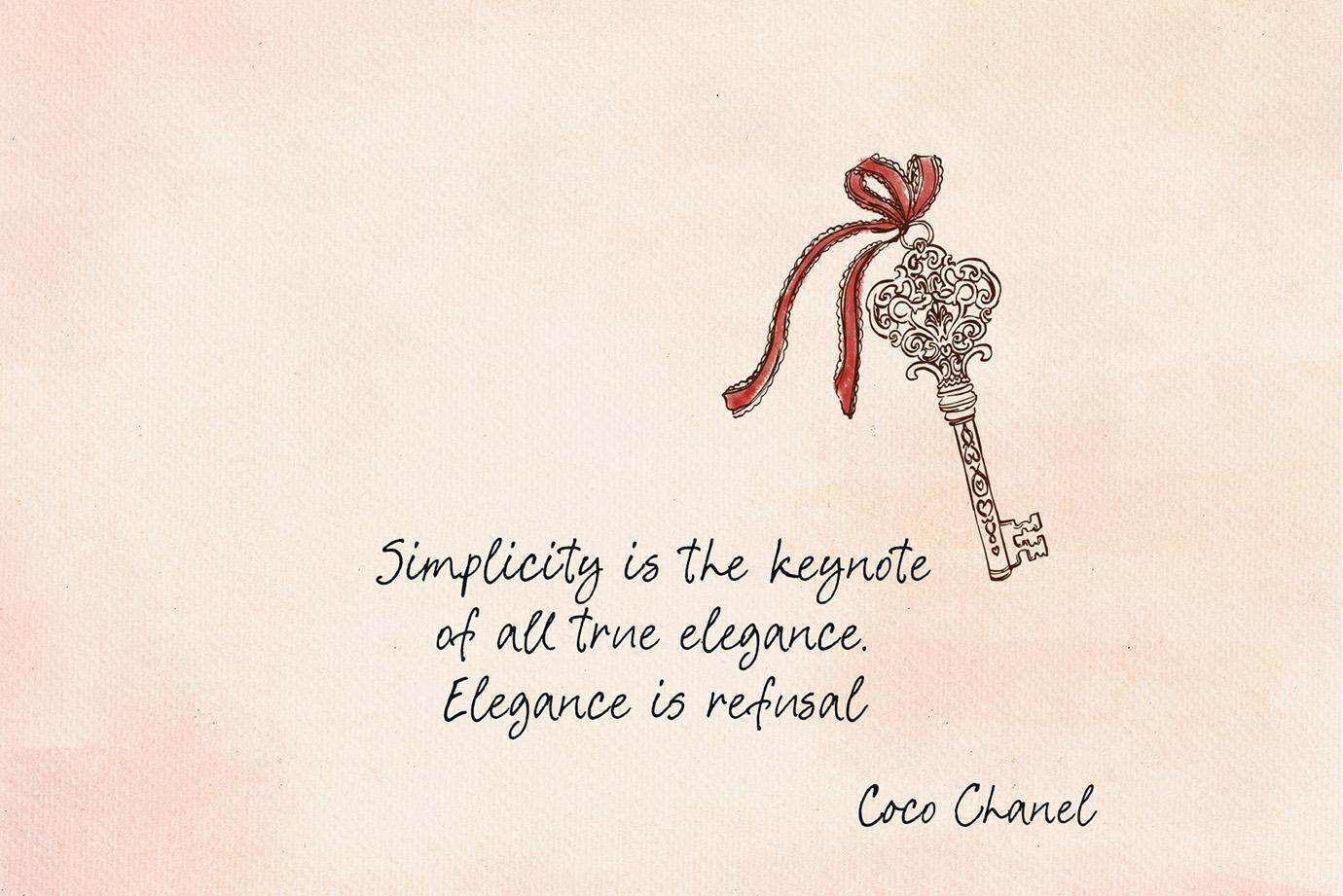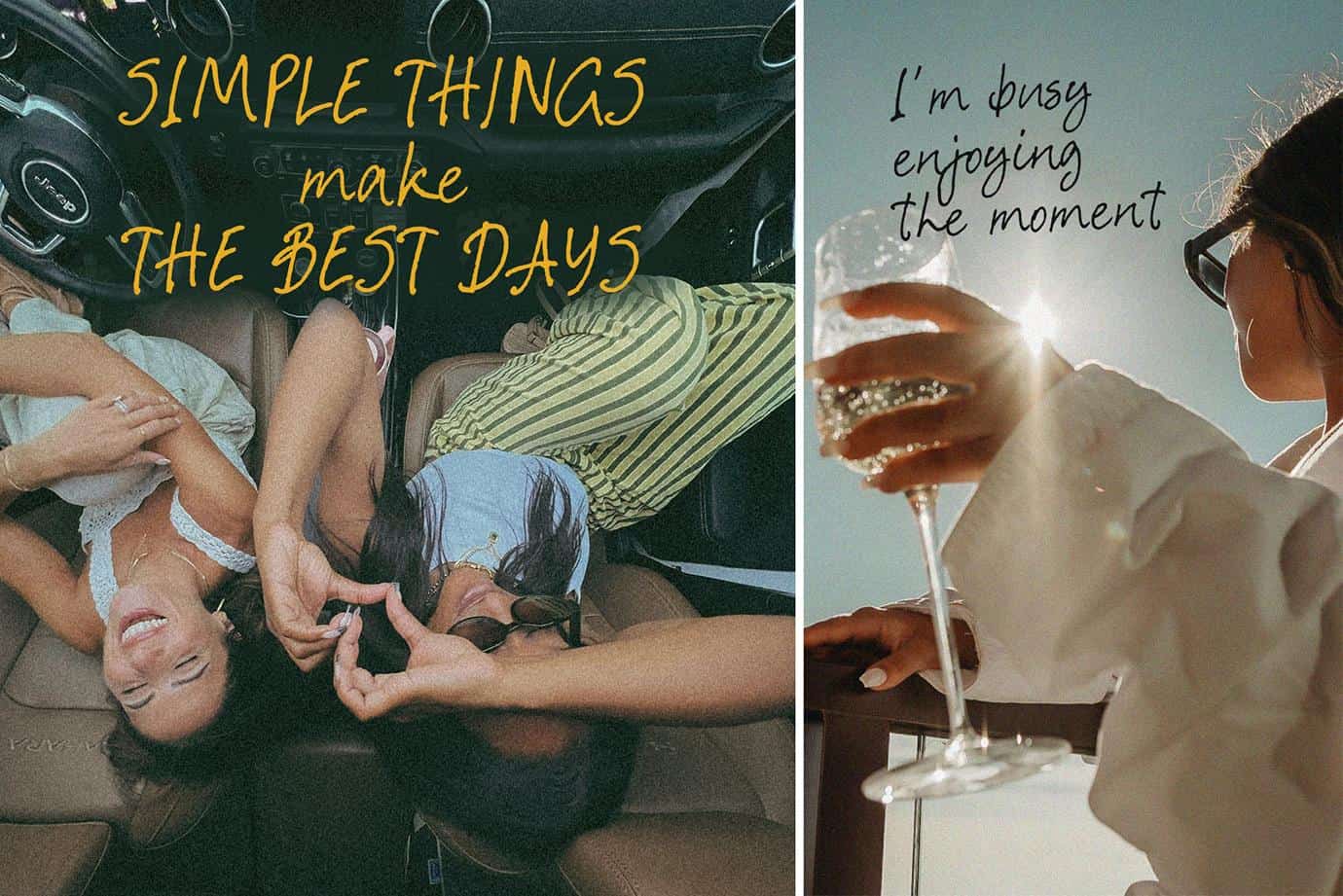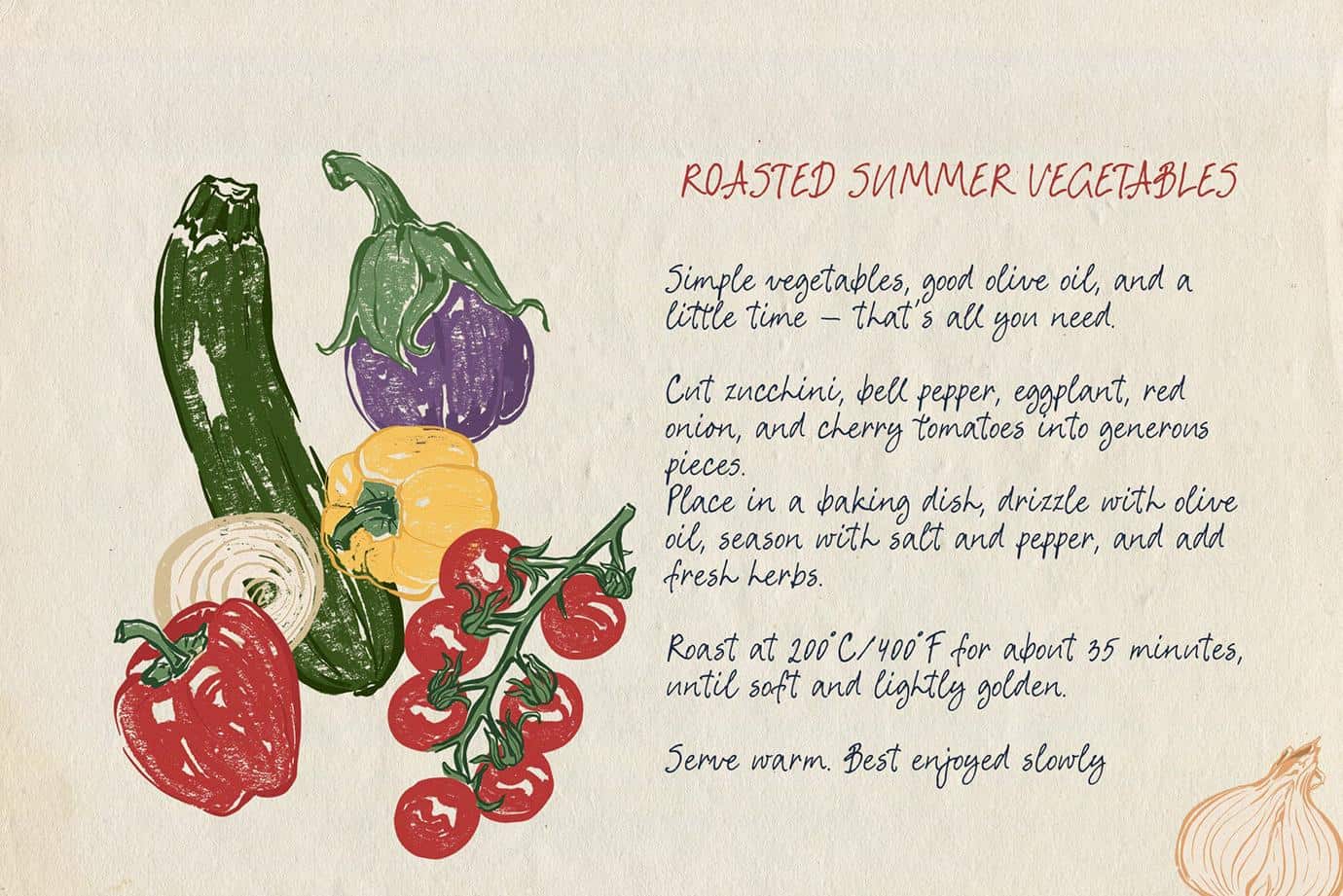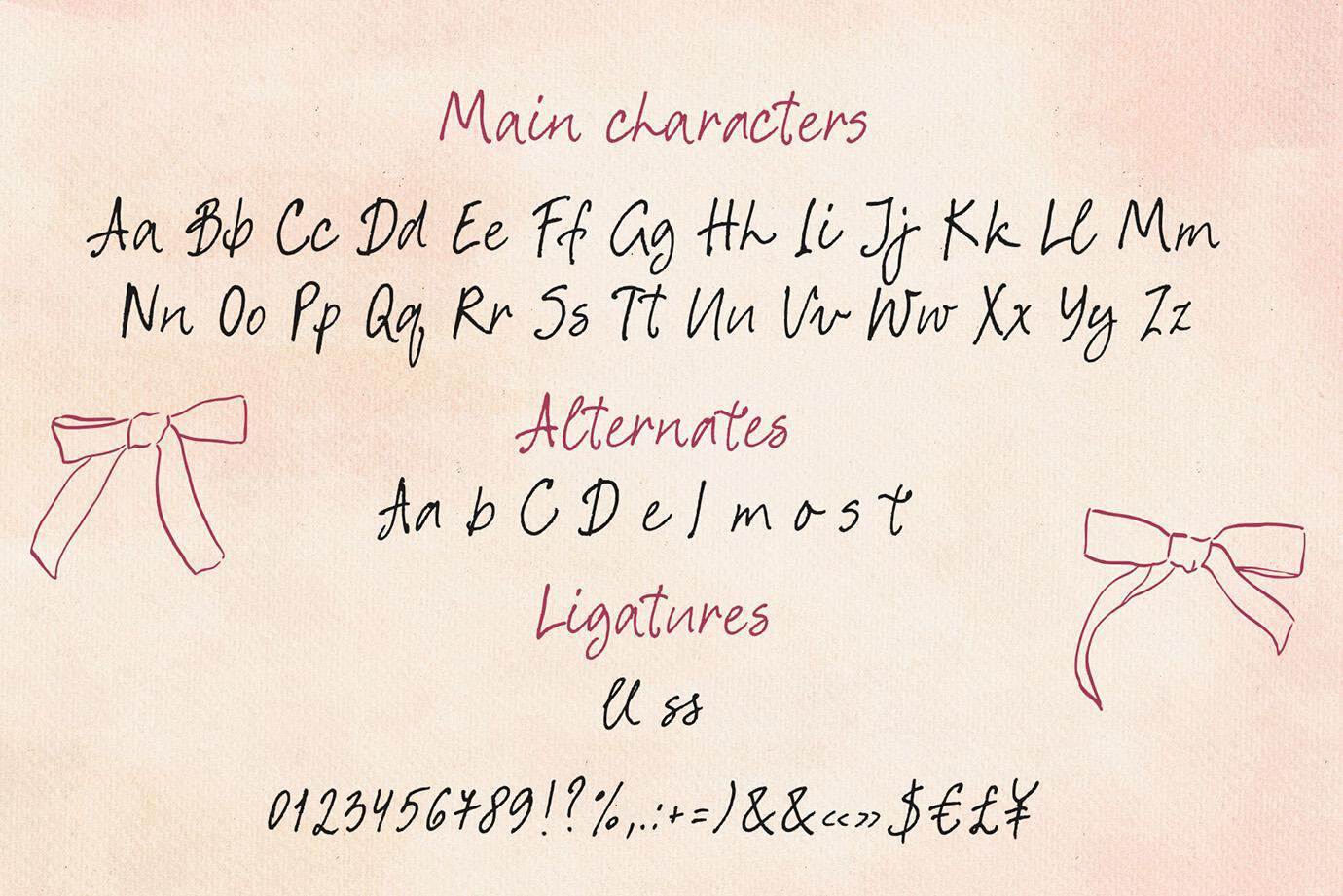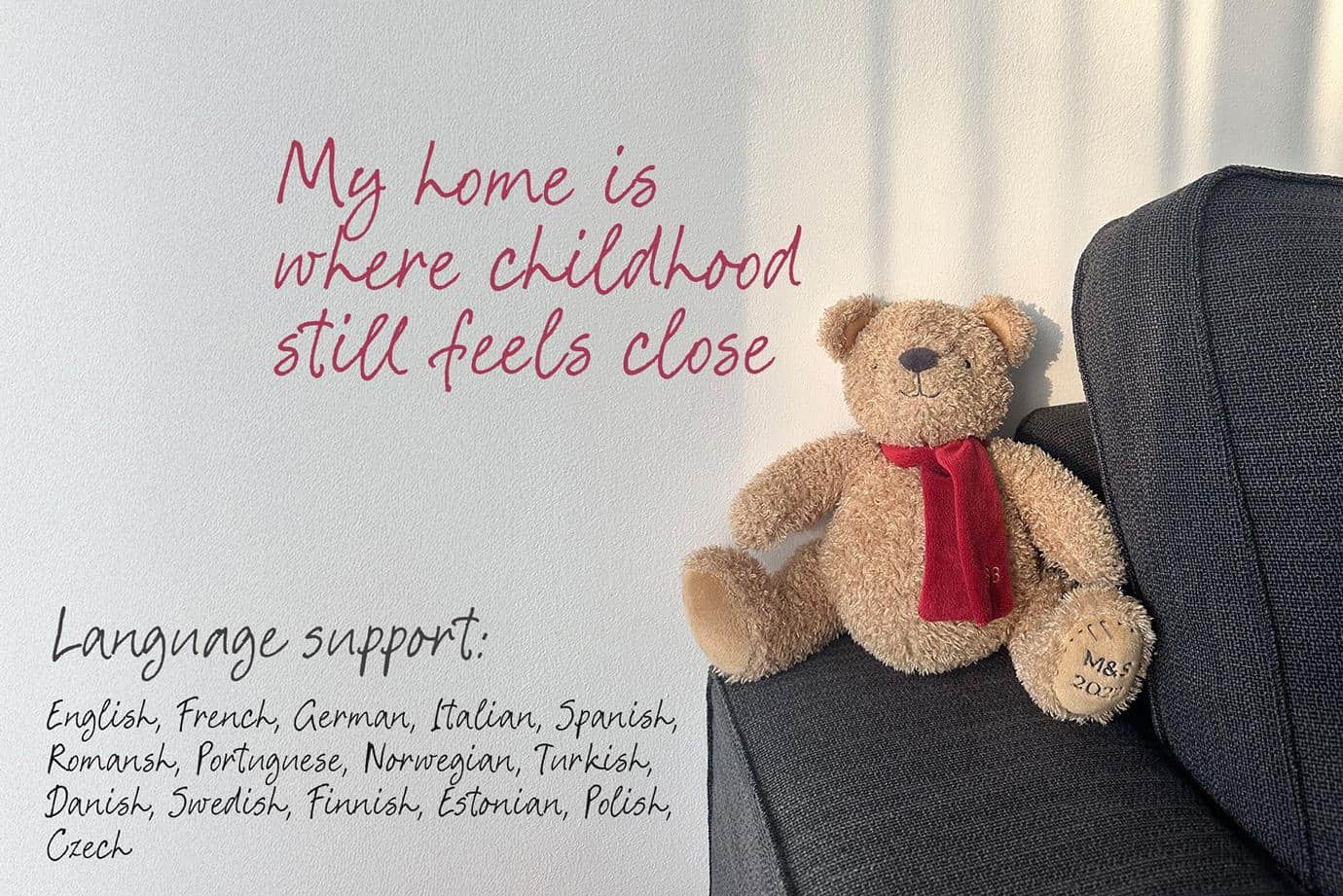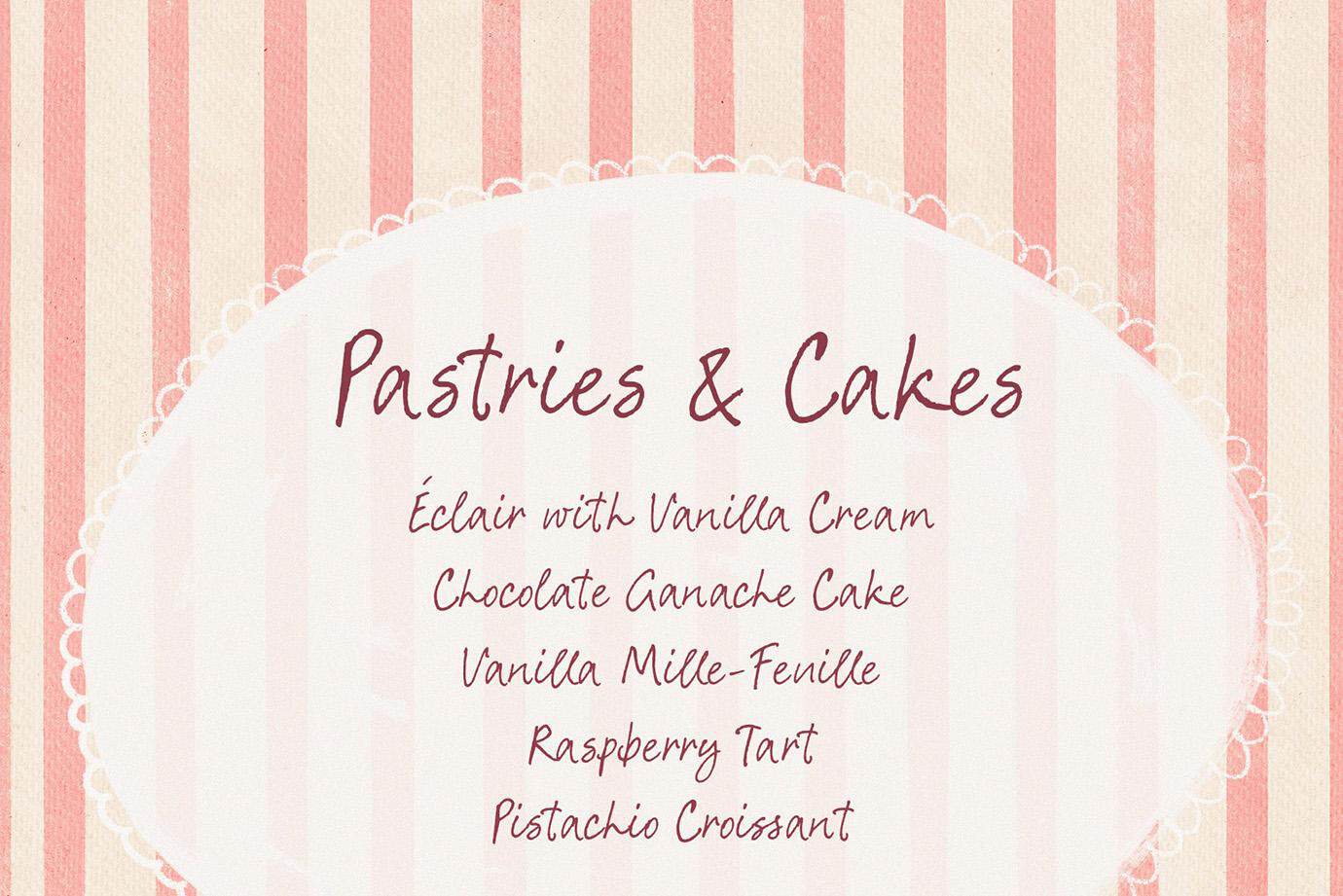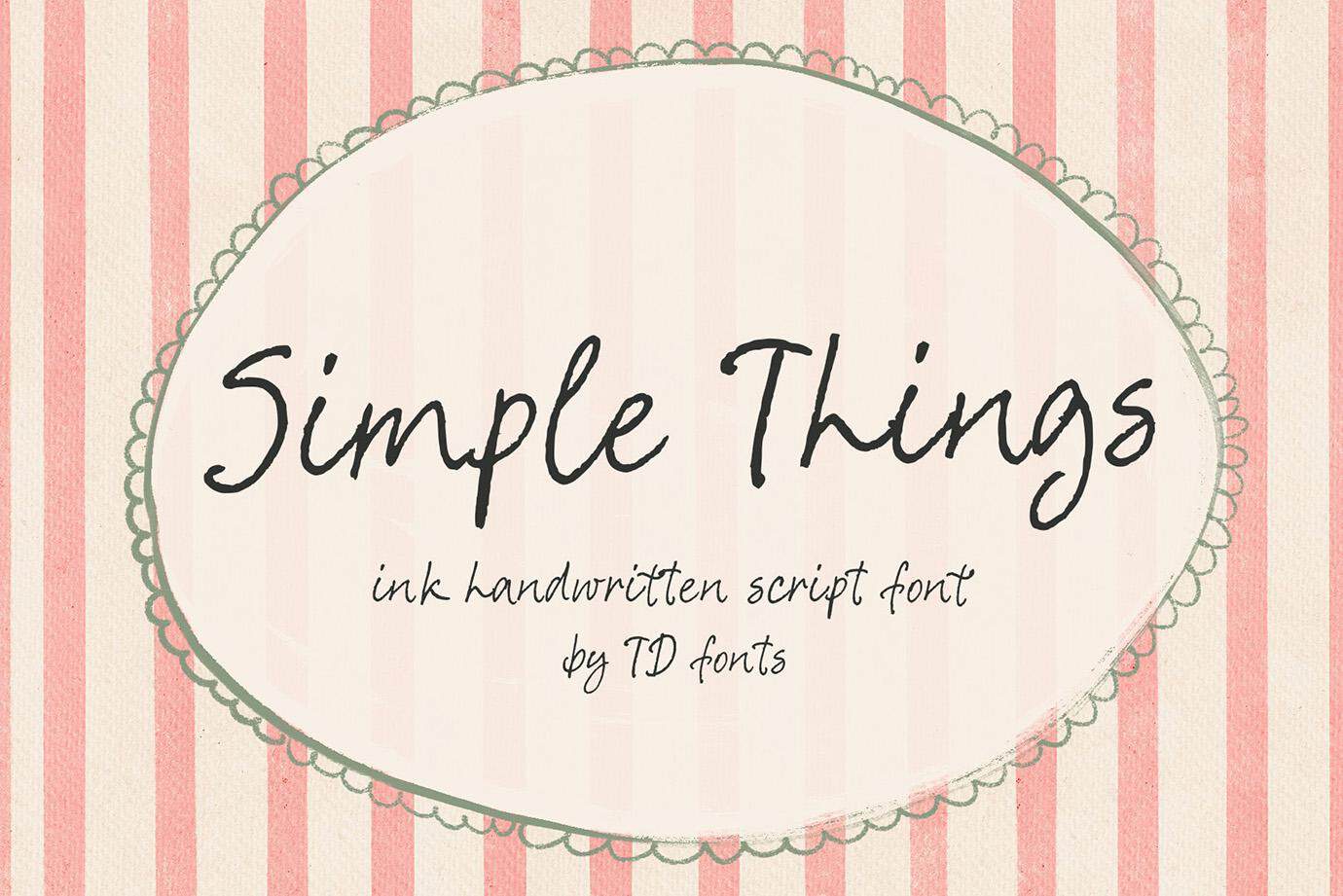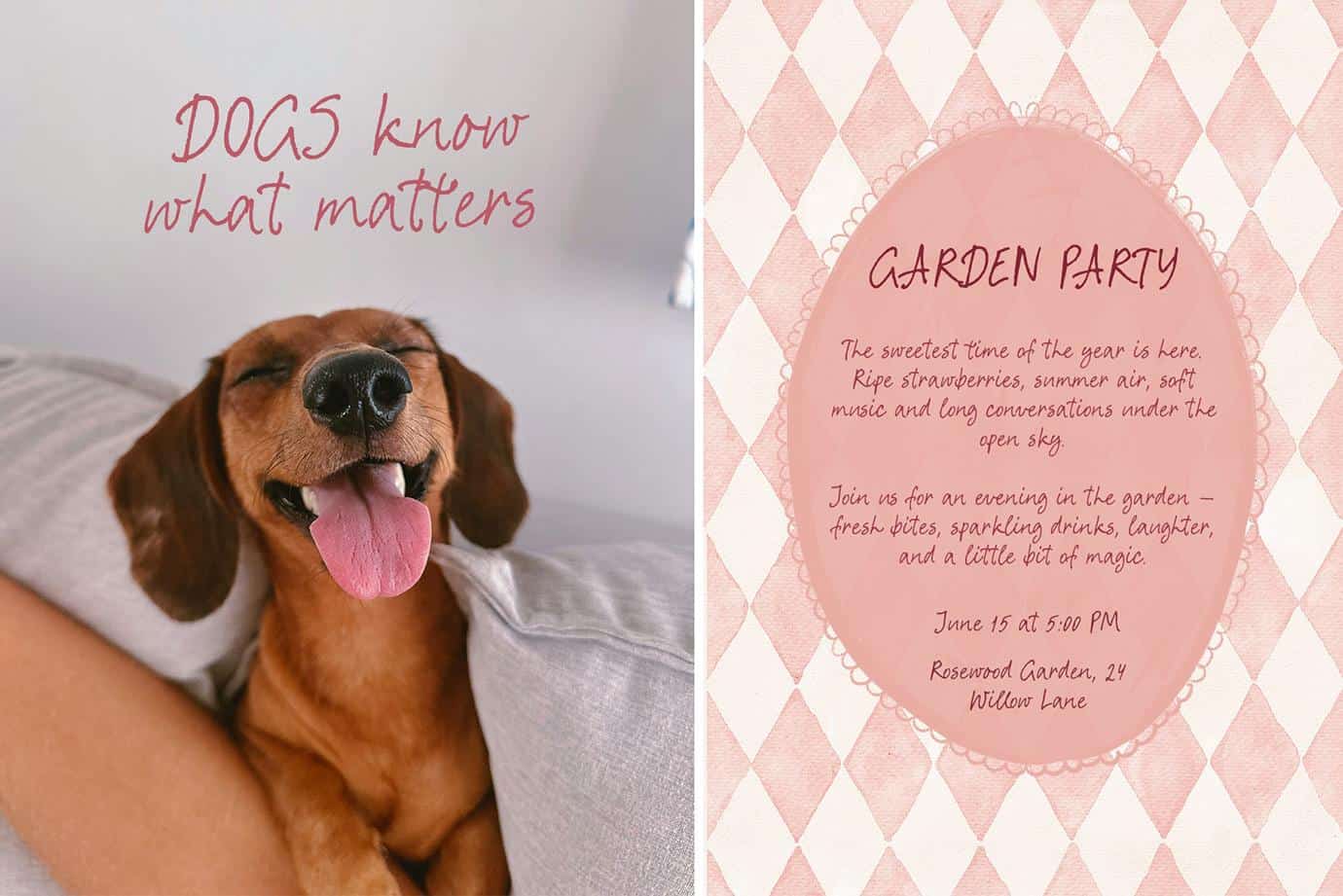
Simple Things - pen ink handwritten script font
Simple Things was born quickly and naturally: a sunny morning, a pen filled with ink, a sheet of paper, and quiet inside — because true beauty is always found in simplicity.
This font captures that familiar moment when you write without overthinking. When your hand moves faster than your thoughts, when lines turn imperfect but honest, filled with a calm joy and the feeling of a long, pleasant day ahead.
The result is an organic handwritten script font — expressive, perfectly imperfect, with a natural rhythm and slightly jumping letters. It feels like real handwriting on paper: warm, casual, and full of character. Simple Things is designed for projects where the human touch matters, where emotion, sincerity, and a sense of life make all the difference.
This modern handwritten script font works beautifully across many uses: branding and logos, websites, social media visuals, packaging, menus, quotes, posters, lifestyle designs, greeting cards, wedding invitations, birthday stationery, Valentine’s Day designs, and more. Its playful yet balanced style makes it equally suitable as a main script or as a companion to clean sans serif fonts.
Simple Things is a versatile ink script font with a slightly naive, whimsical feel — a casual handwritten font that looks natural, expressive, and effortlessly modern.
The font is multilingual and includes alternate characters, allowing you to create truly personal, organic, and expressive lettering every time.
This font captures that familiar moment when you write without overthinking. When your hand moves faster than your thoughts, when lines turn imperfect but honest, filled with a calm joy and the feeling of a long, pleasant day ahead.
The result is an organic handwritten script font — expressive, perfectly imperfect, with a natural rhythm and slightly jumping letters. It feels like real handwriting on paper: warm, casual, and full of character. Simple Things is designed for projects where the human touch matters, where emotion, sincerity, and a sense of life make all the difference.
This modern handwritten script font works beautifully across many uses: branding and logos, websites, social media visuals, packaging, menus, quotes, posters, lifestyle designs, greeting cards, wedding invitations, birthday stationery, Valentine’s Day designs, and more. Its playful yet balanced style makes it equally suitable as a main script or as a companion to clean sans serif fonts.
Simple Things is a versatile ink script font with a slightly naive, whimsical feel — a casual handwritten font that looks natural, expressive, and effortlessly modern.
The font is multilingual and includes alternate characters, allowing you to create truly personal, organic, and expressive lettering every time.